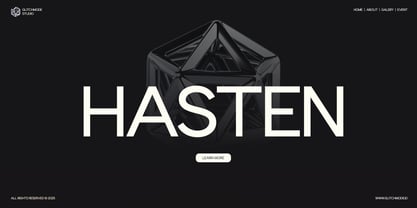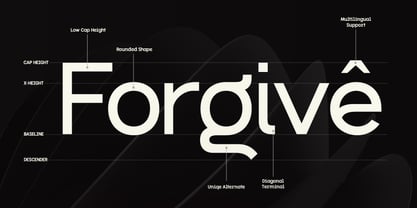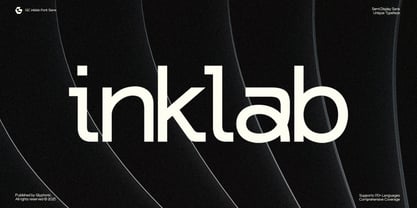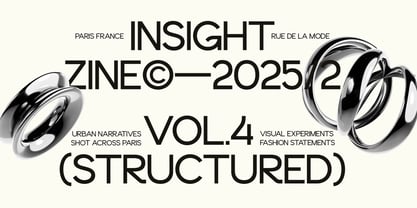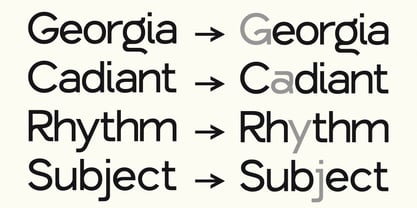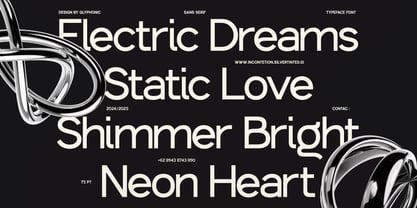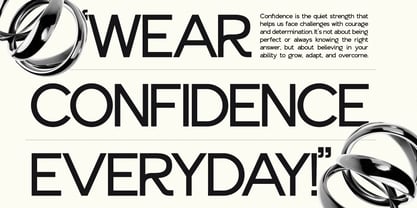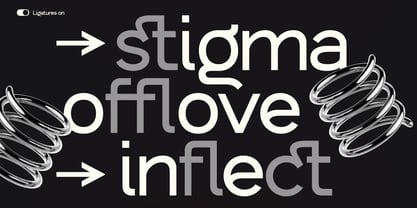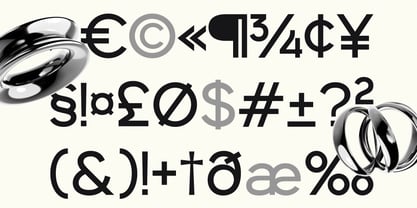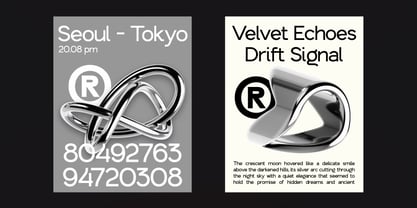
GC Inklab
The GC Inklab Font Family was designed by Muhammad Hafiizh Solana and published by Onyx Studio. GC Inklab contains 1 styles. More about this family
GC Inklab is ABold Fusion of Geometry is a semi-display sans-serif typeface that merges precise geometric shapes with a touch of typographic experimentation. Designed for standout headlines, modern branding, editorial visuals, and digital interfaces, it offers clarity, uniqueness, and confidence in every glyph.
With its balanced letterforms, clean construction, and subtle quirks, GC Inklab brings a forward-thinking yet accessible look. Whether you’re crafting tech brands, design posters, UI systems, or creative identities, this font delivers a smart, modern personality.
Features:
• Uppercase & Lowercase
• Ligatures & Stylistic Alternates
• Numbers & Punctuation
• Multilingual Support (170+ Languages)
Make your design precise, modern, and memorable with GC Inklab.